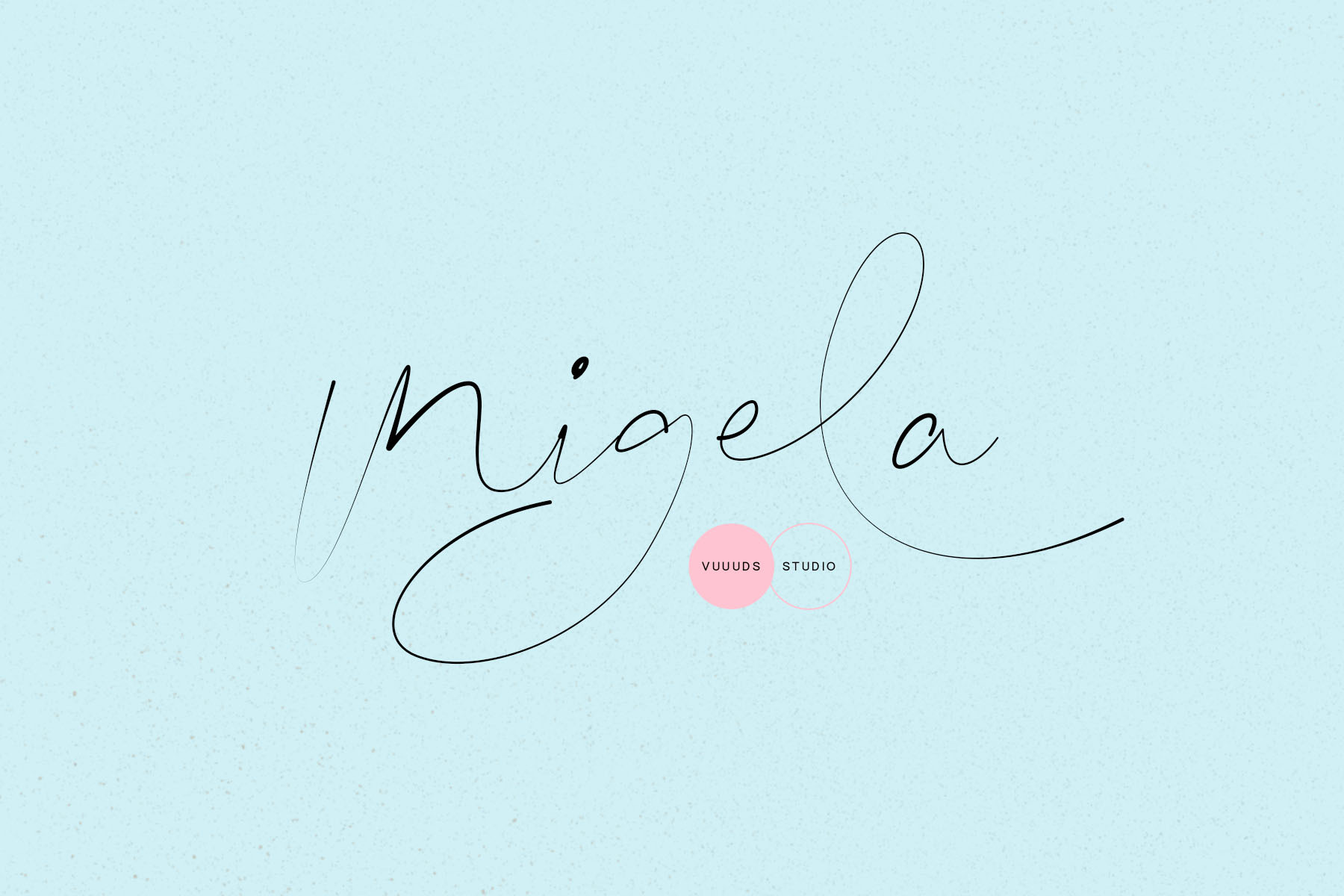
Migela Font
Introducing Migela Font!
Migela is modern signature script font, every single letters have been uniquely crafted.
Foreign languages support: ÀÁÂÃÄÅÆÇÈÉÊËÌÍÎÏÐÑÒÓÔÕÖØÙÚÛÜÝàáâãäåæçèéêëìíîïðñòóôõöøùúûüýÿ